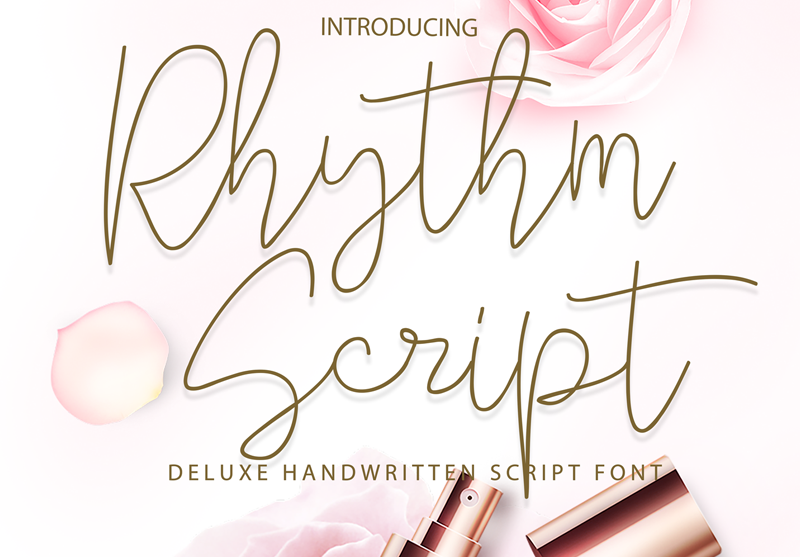
Rhythm Script Font is a signature script font, this font looks classy, luxury, elegant, romantic, and awesome. You can buy full license from our store for more our fonts: https://gumroad.com/l/OIMYL if you have any problem, let we know by email: admin@177studio.com |